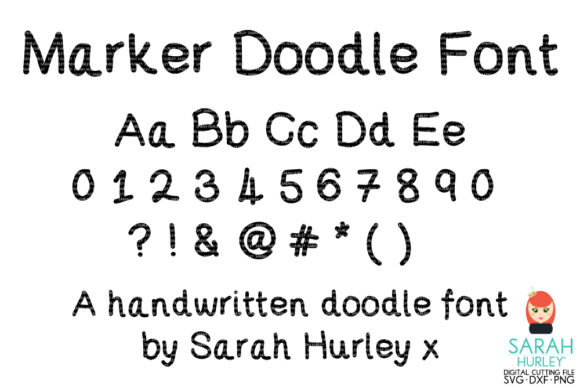
Marker Doodle Font
About Marker Doodle Font
Introducing The Marker Doodle, a delightful and playful font that brings a whimsical touch to your designs with its fun doodle style. This font is more than just letters; it’s a design tool that adds a lively and creative flair to a variety of projects.
The Marker Doodle is all about infusing your designs with a playful and carefree atmosphere. Whether you’re working on posters, banners, invitations, social media graphics, or any project that could benefit from a touch of whimsy, this font is the perfect choice.
Its doodle style brings a handmade and artistic quality to your text, adding a sense of spontaneity and creativity. The playful feel of The Marker Doodle makes it suitable for a range of applications where you want to break away from traditional and inject a bit of fun into your designs.
This font is ideal for those who want to convey a lighthearted and casual vibe. It’s perfect for children’s projects, event invitations, and any design that could benefit from a touch of personality and charm.
In summary, The Marker Doodle is not just a font; it’s a design companion that brings a playful feel to your creative endeavors. Embrace the doodle style and let The Marker Doodle add a touch of fun and creativity to your posters, banners, invitations, and more. It’s the perfect choice for those who want to infuse their designs with a carefree and whimsical spirit.